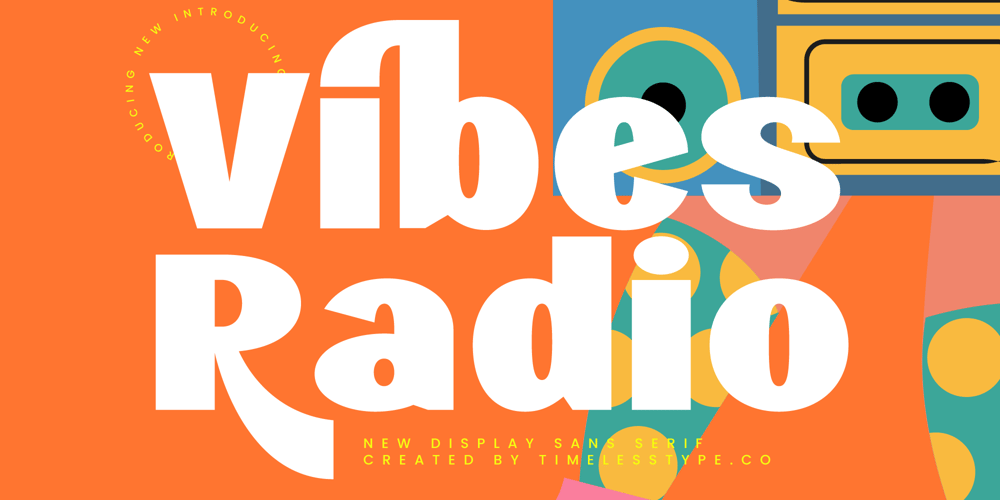
Vibes Radio Font Family was designed by Heru Utama Putra and published by Timelesstype Studio. Vibes Radio contains 2 styles and family package options. Vibes Radio – New Display Sans Serif , from Timelesstype , Suitable for any projects such as: logos, branding projects, homeware designs, product packaging, mugs, quotes, posters, shopping bags, t-shirts, book covers, name card, invitation cards, greeting cards, label, photography, watermark, special events, and all your other luxury and beautiful projects that need a Luxury Serif taste.